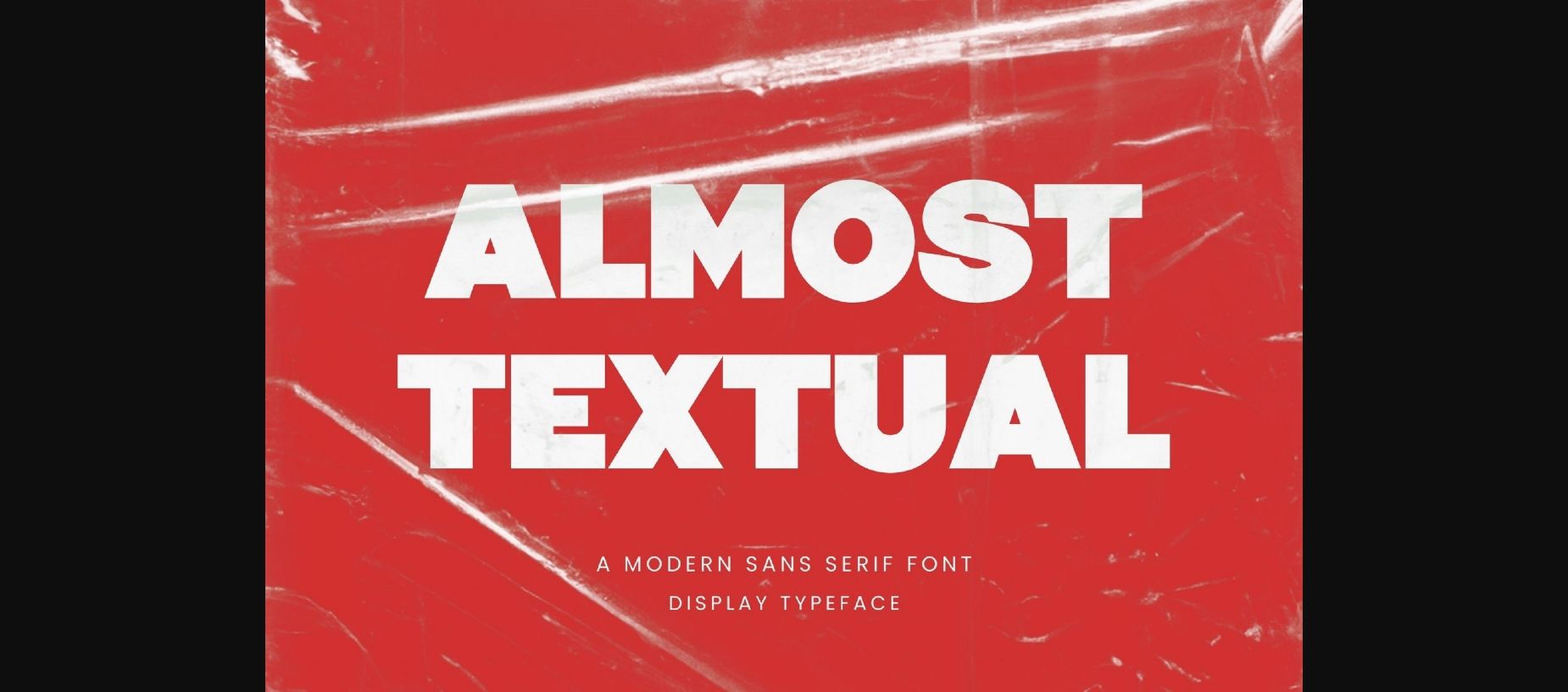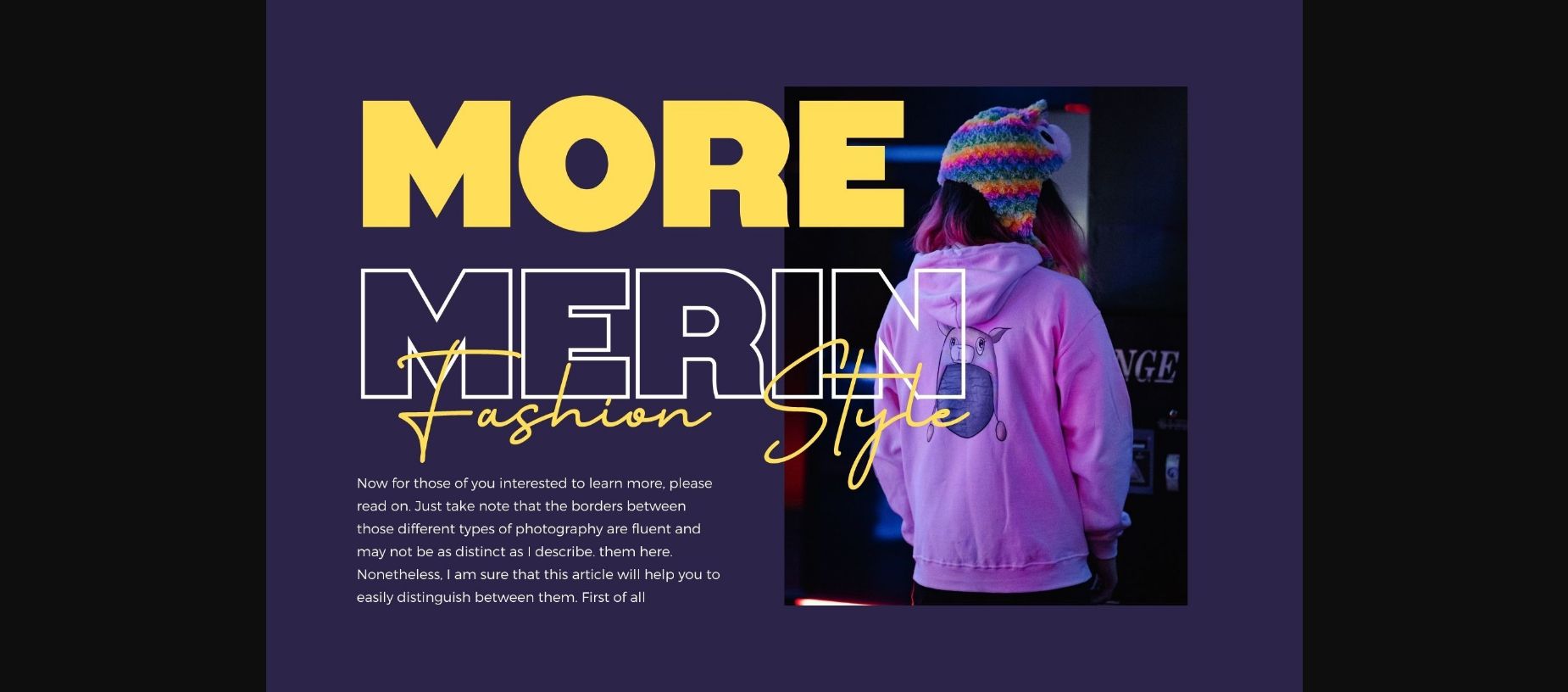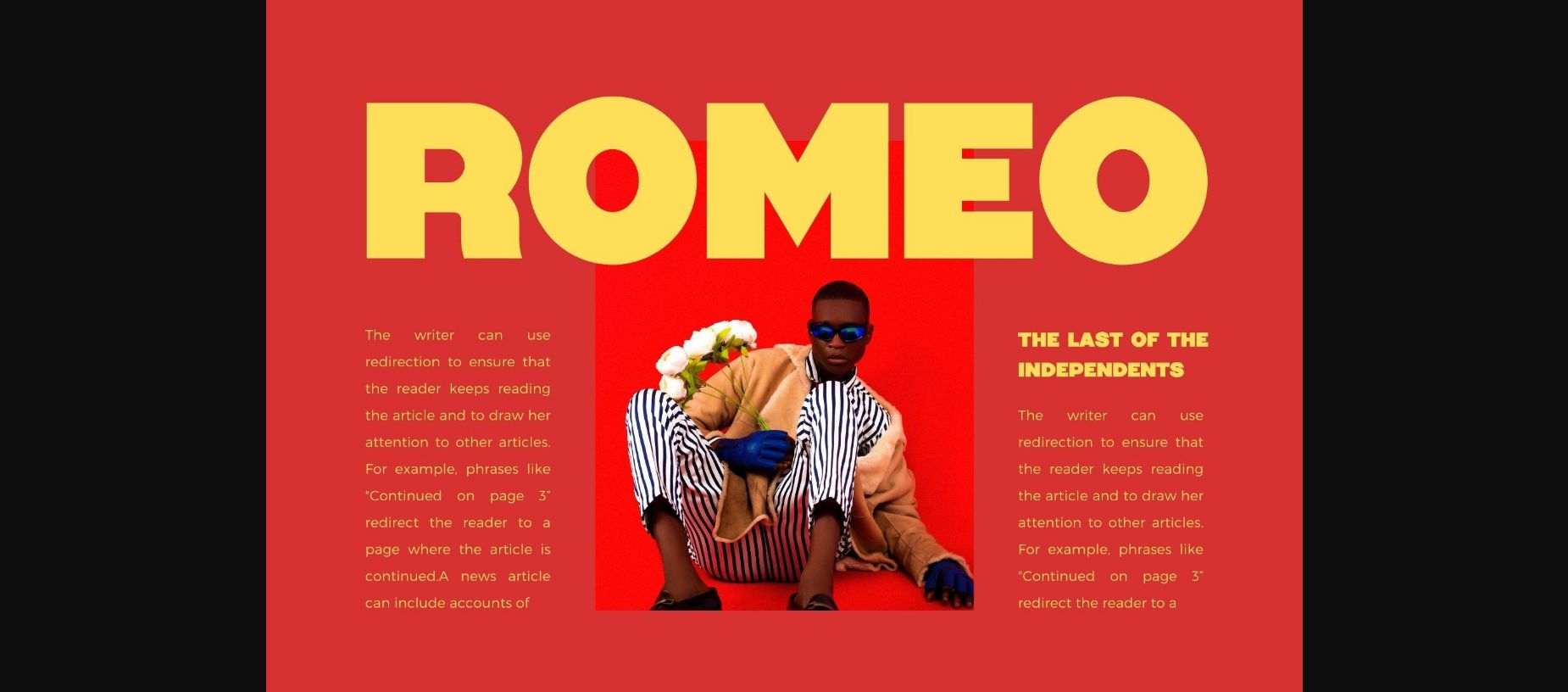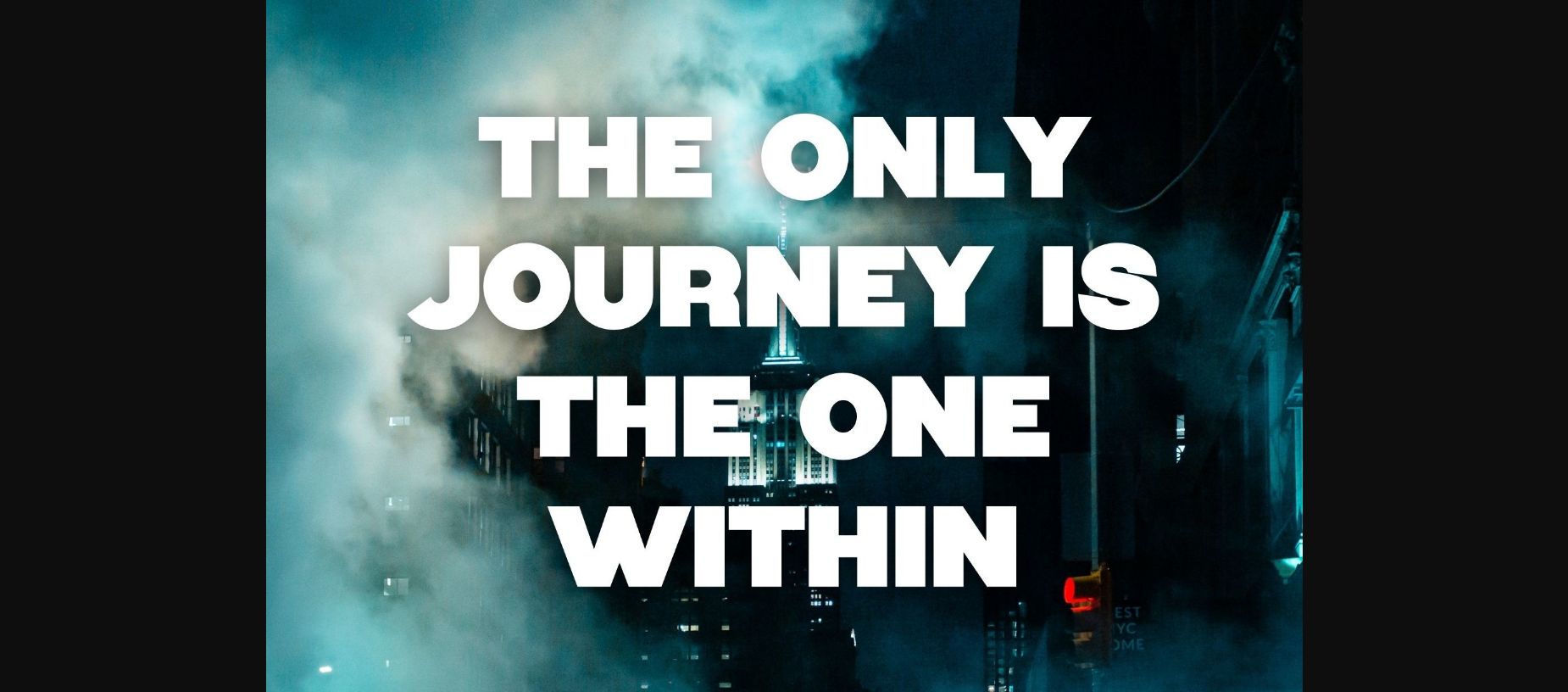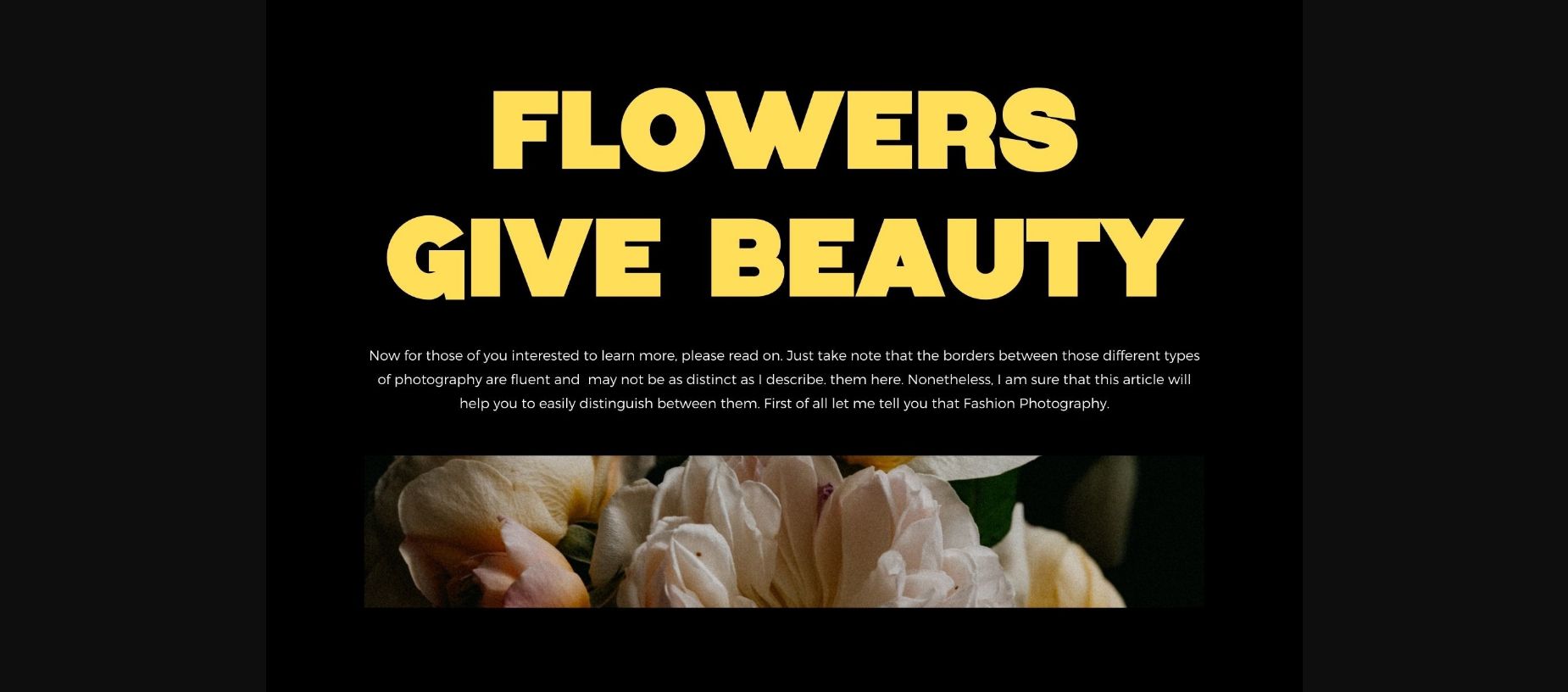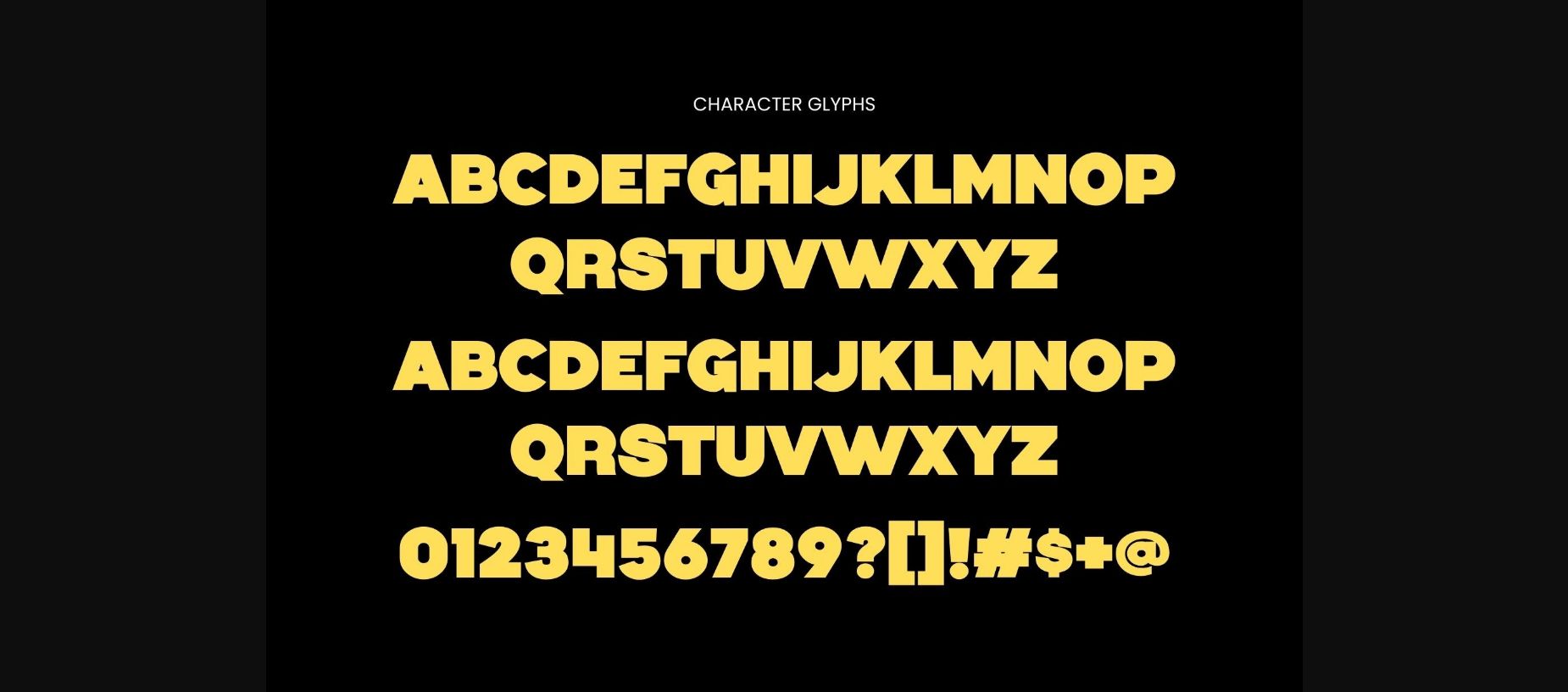
About Almost Textual Font
Almost Textual is a contemporary sans-serif font that strikes the perfect balance between elegance and readability. Its clean and minimalist design ensures effortless legibility, making it an ideal choice for both print and digital projects. With a hint of sophistication, Almost Textual brings a touch of modernity to any text, making it versatile for a wide range of applications, from body text to headings.